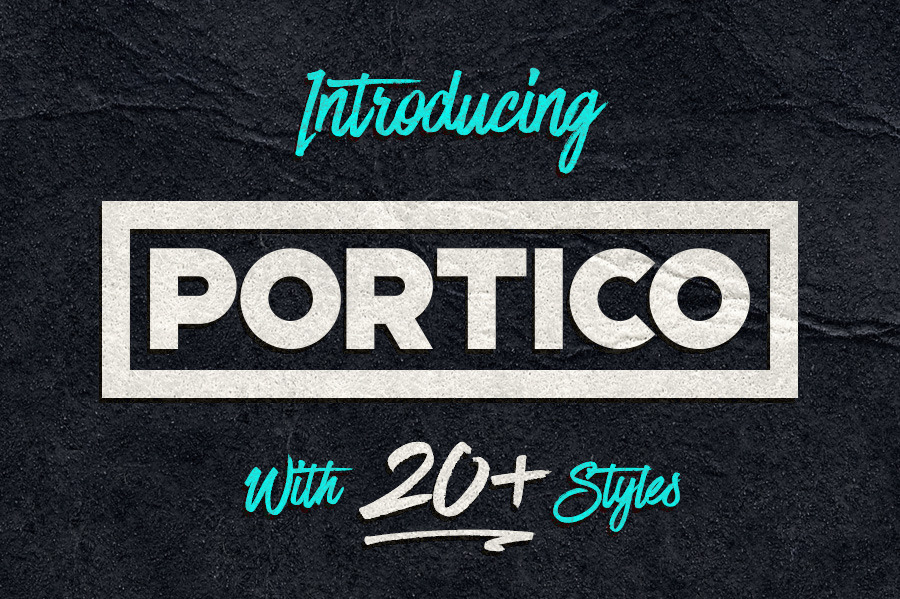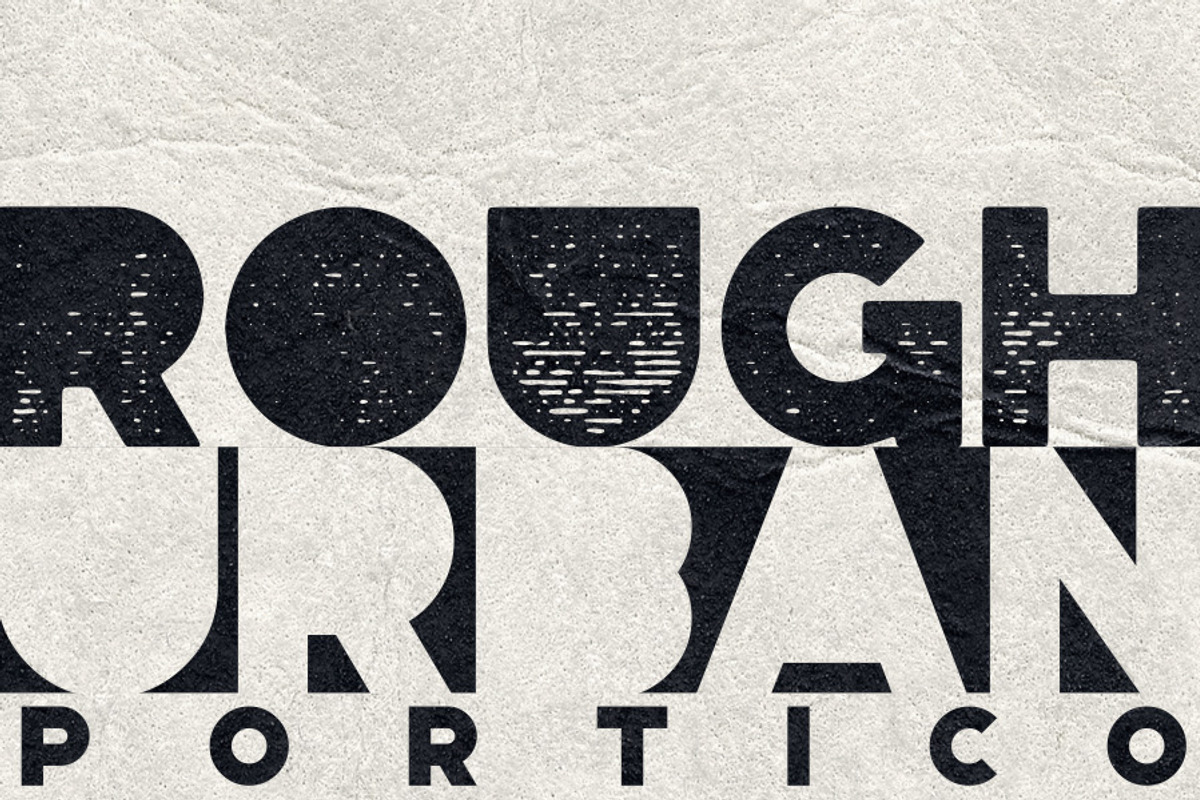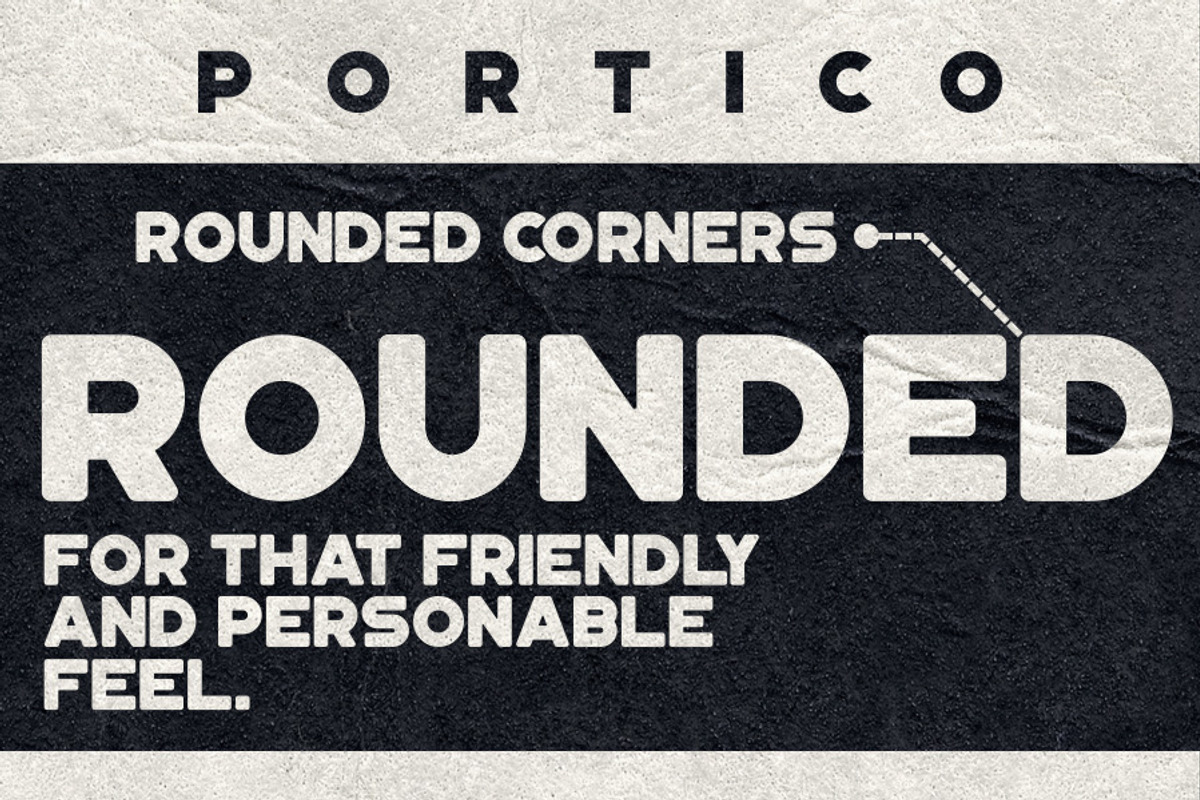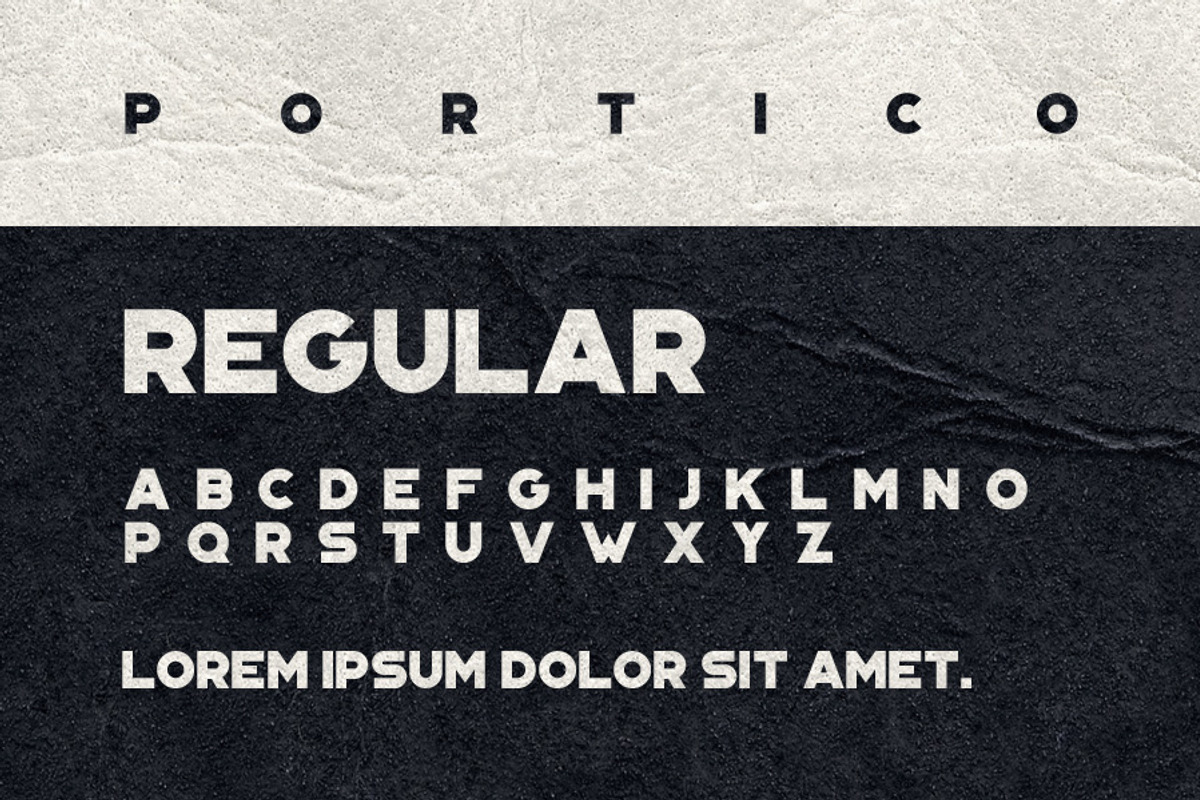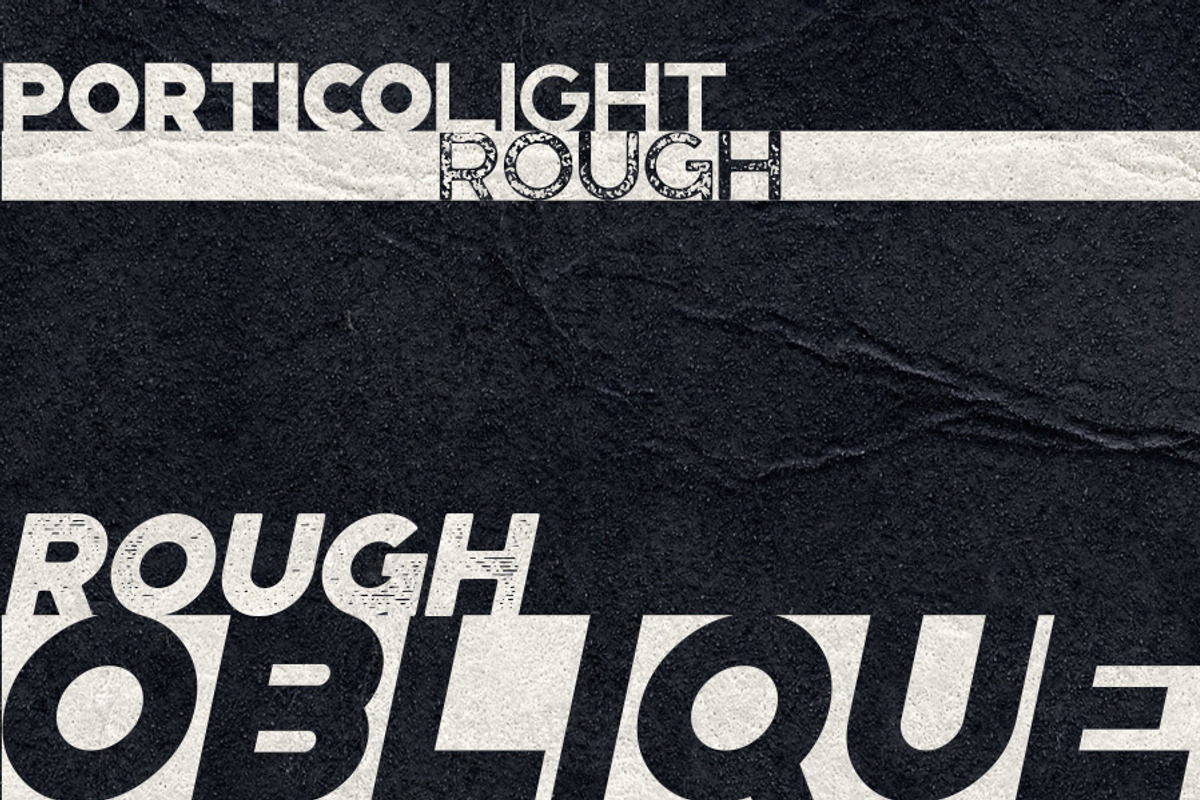
Portico Typeface
Portico is a display typeface with a ton of styles. It includes uppercase multilingual letters, numbers and punctuation.
I tried to make the family as versatile as possible. The rounded and in-diagonal versions are great for more personable applications, the urban and rough versions are great for all grunge designs, the layered and vintage versions have a very retro-ish theme to them and work in 2 colors. The stencil version works well for posters and apocalypse themed stuff and the diablo style is just...evil.